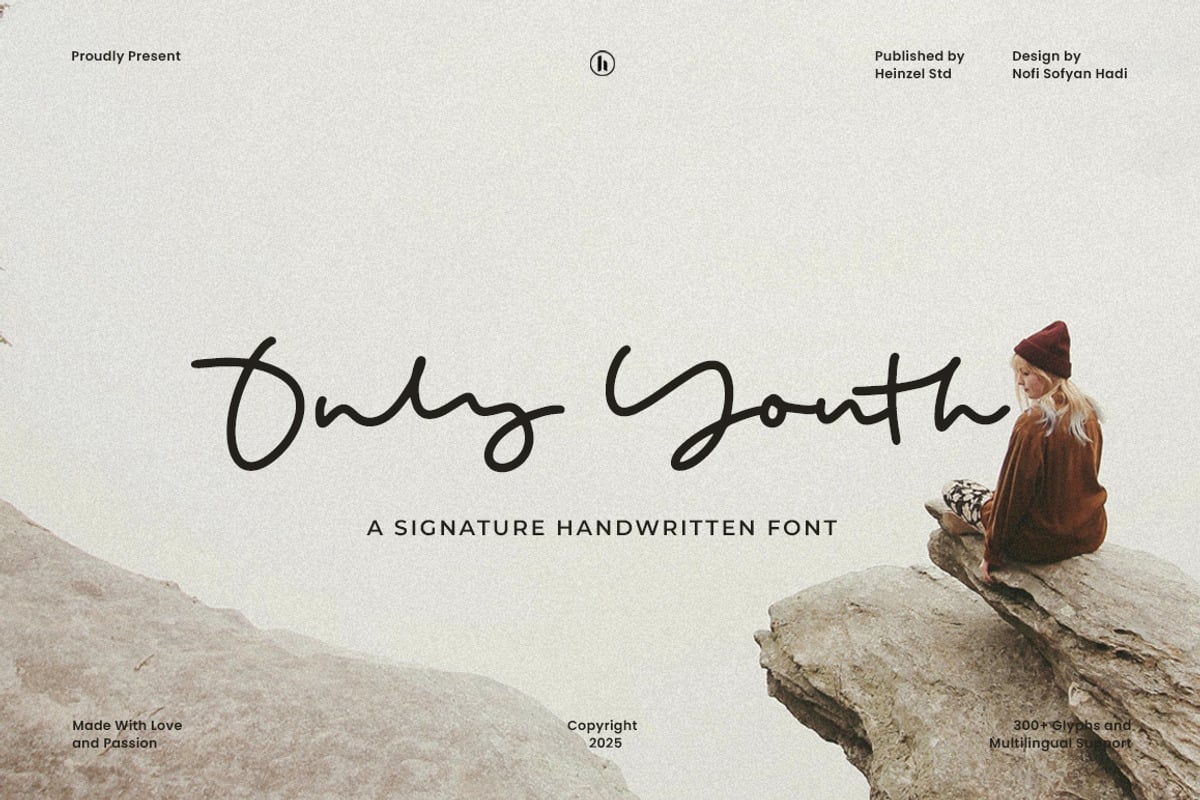
Only Youth Signature Handwritten Font
Capture the spirit of youth, freedom, and personal expression with this warm, modern signature handwritten font.
Only Youth is a signature handwritten typeface designed with smooth strokes and a natural handwriting flow that feels both authentic and stylish. Its clean yet expressive character brings charm and individuality to any project — making your typography feel genuinely unique and memorable.
This font is ideal for a wide range of creative applications, including:
- Branding and logos
- Social media content
- Wedding designs
- Photography watermarks
- Inspirational quotes
- Lifestyle and personal projects
Only Youth works beautifully across both digital and print formats, adding an elegant personal touch wherever it's used.
- Uppercase and Lowercase letters
- Numerals and Punctuation
- Ligatures and Alternates
- Multilingual Support